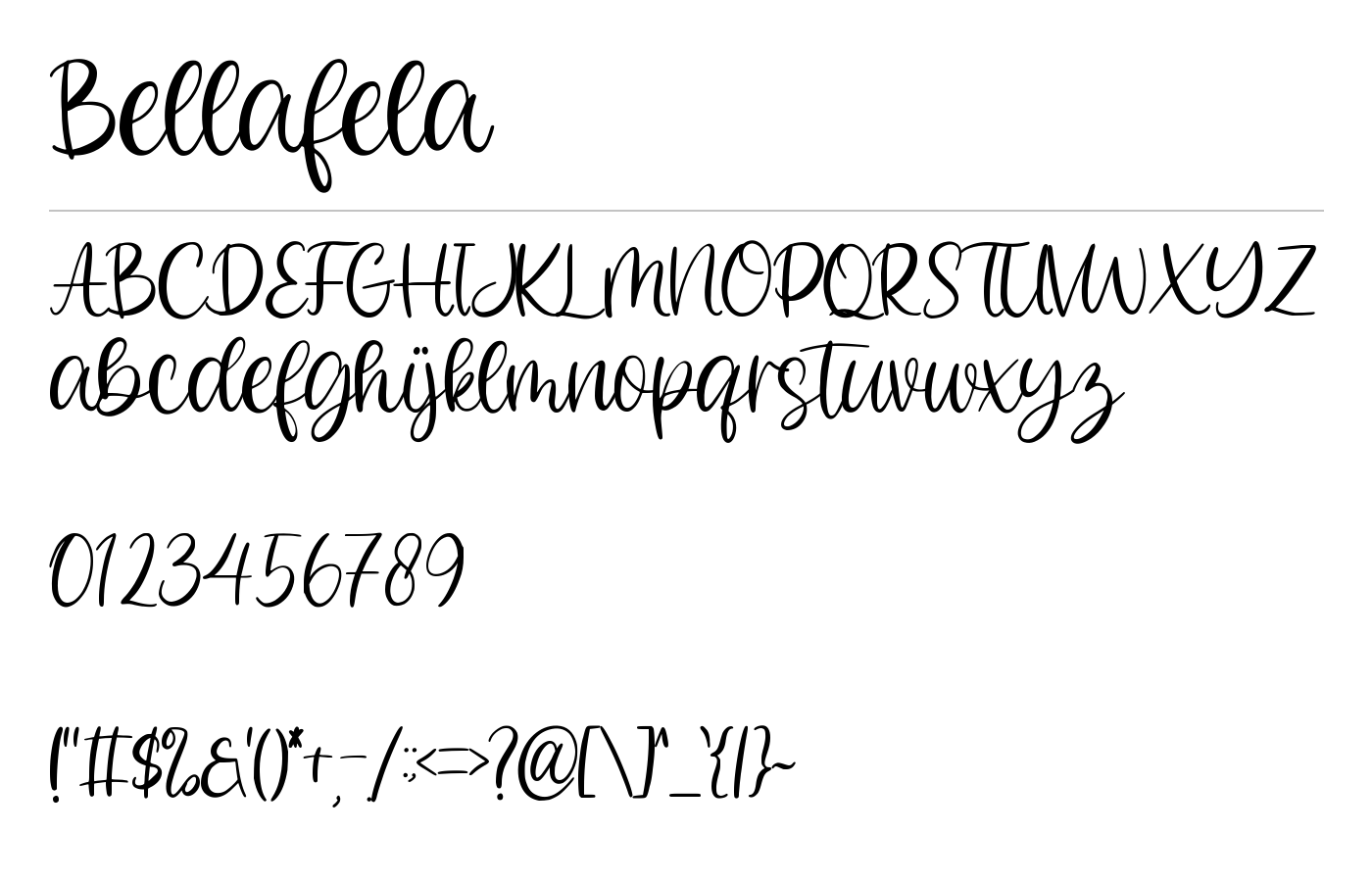
Bellafela is a playful and elegant script font characterized by its smooth, flowing strokes and moderately high x-height, which makes it legible and friendly. With its thin to medium weight and casual, hand-drawn style, it suits creative projects like invitations, branding, and social media where a personal, handwritten touch is desired. This font works well for headlines and decorative text, adding charm and warmth without compromising readability.
Bellafela Font
About Bellafela Font